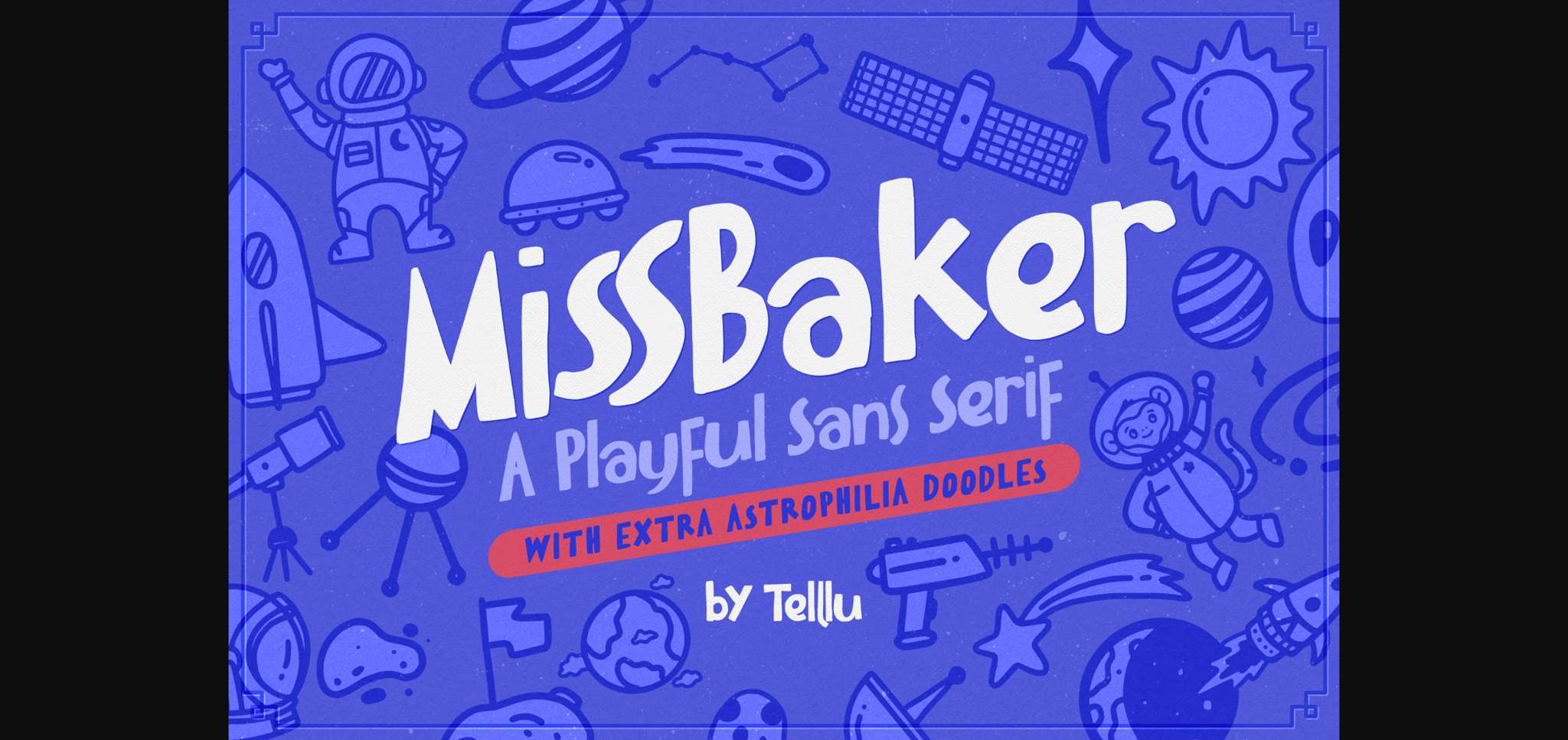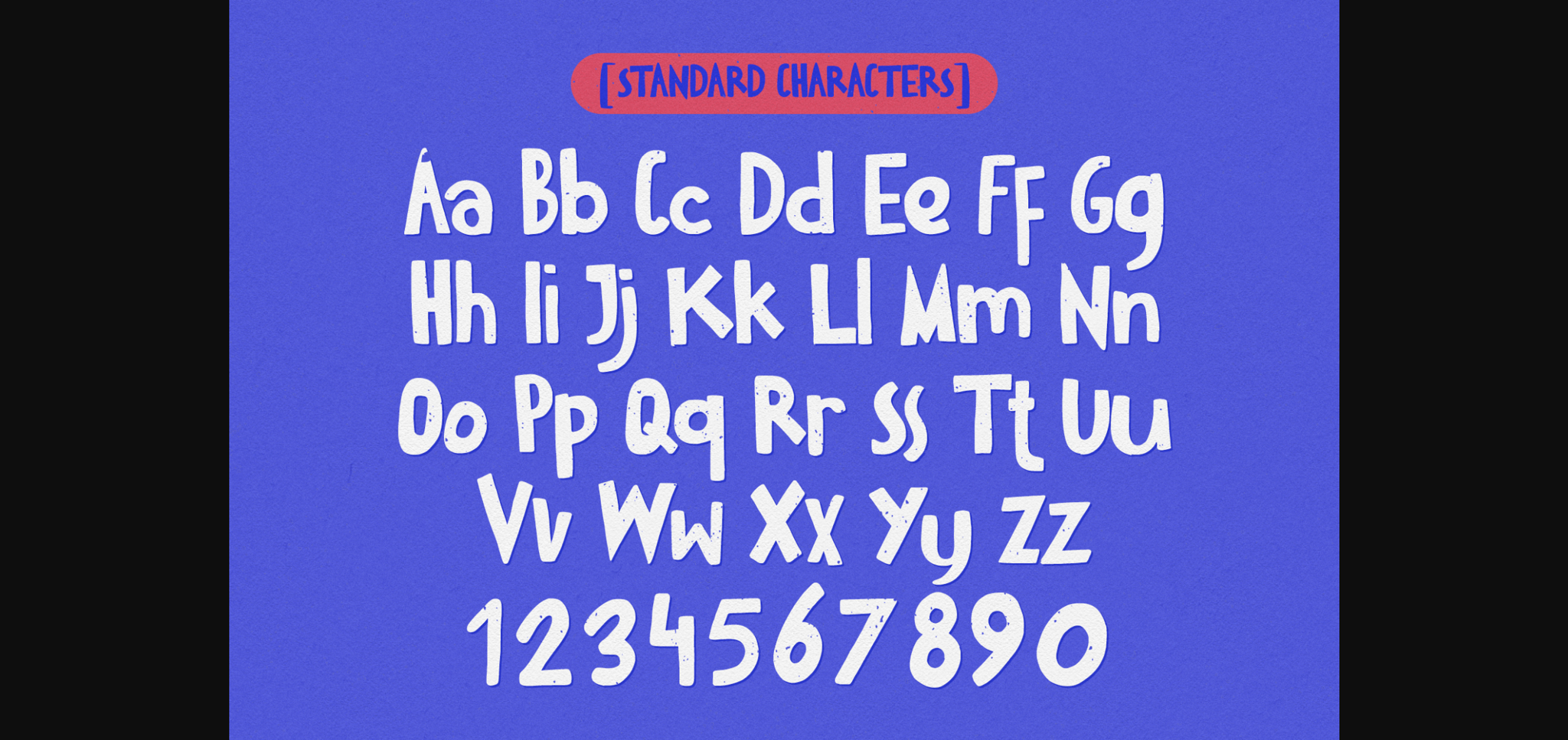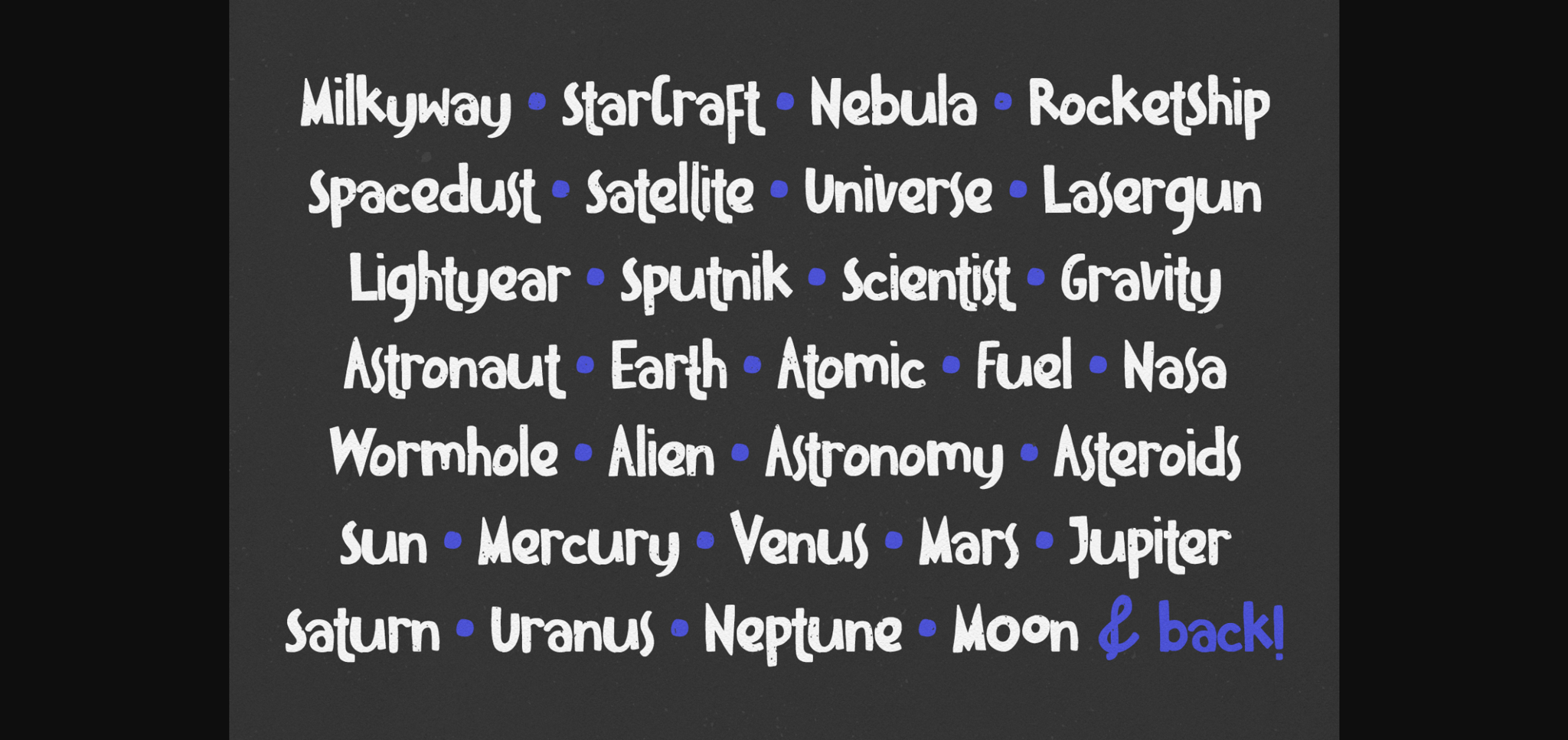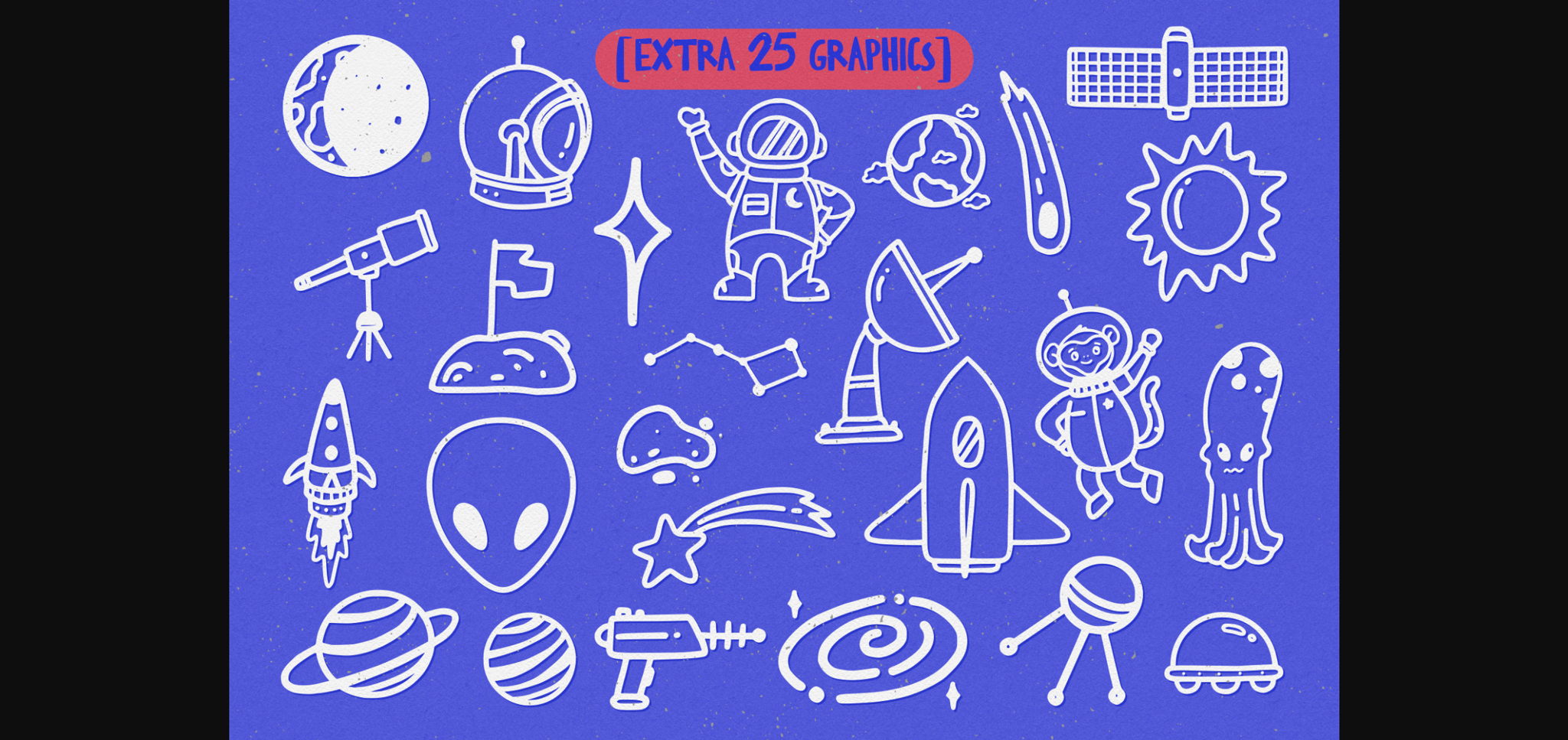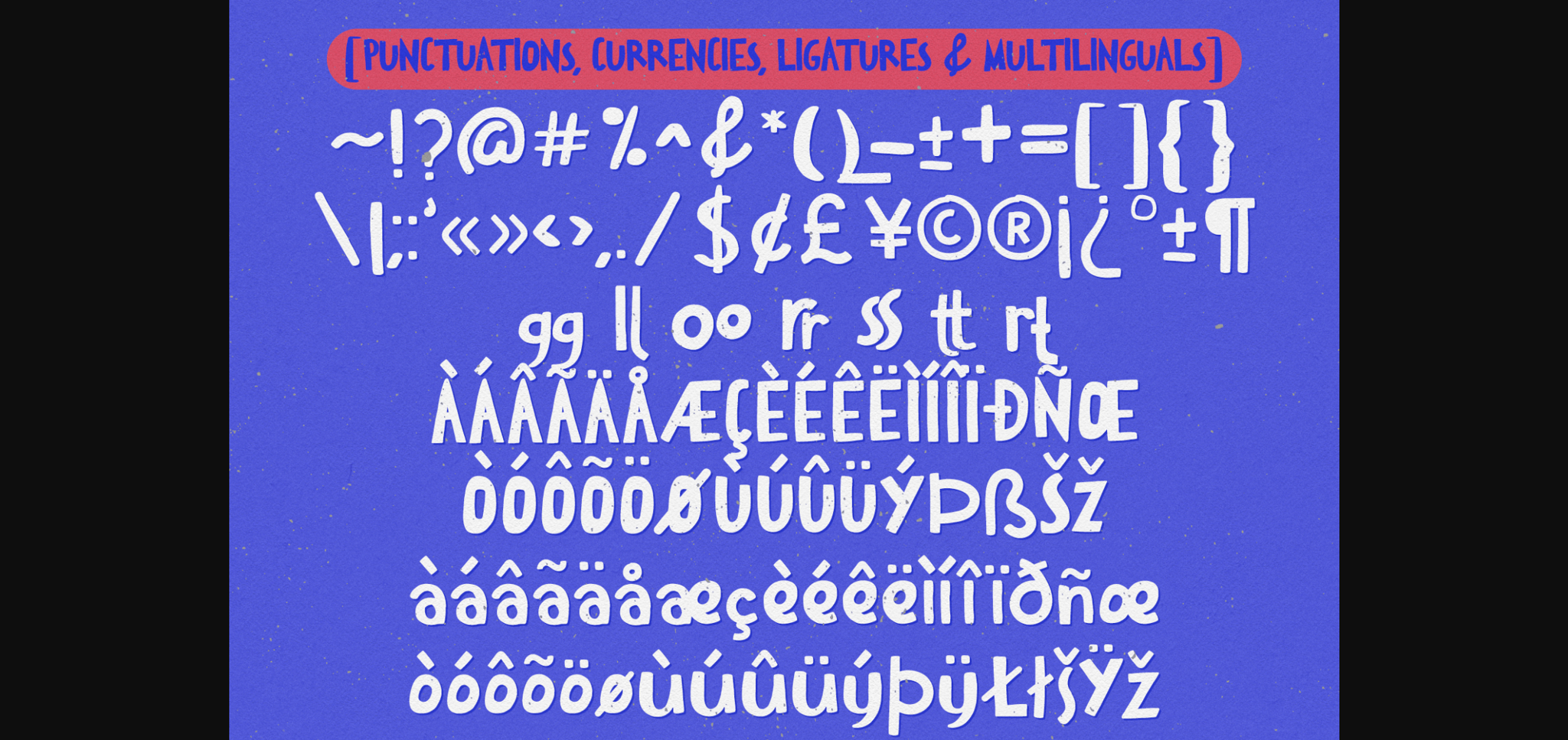
About MissBaker Font
Miss Baker is a playful sans serif font with extra outer space doodles. Use this gorgeous and unique font to bring any DIY project to life!